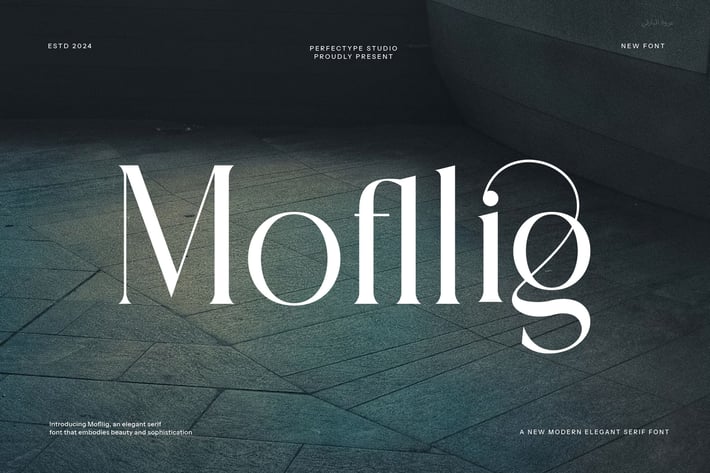
Mofllig Modern Ligature Serif Font
Mofllig is a modern serif font with a clean and elegant feel. It mixes classic shapes with soft curves and stylish ligatures. This makes it a great choice for logos, magazines, websites, packaging, and more. The font works well in both large and small sizes, so it’s easy to read in any format.
It includes uppercase and lowercase letters, along with many ligatures and alternate characters. Because of this, you can add a unique and custom feel to your designs. Also, it supports many languages, making it a great pick for international use.
The details in each letter help Mofllig stand out. While the shapes feel classic, they also look fresh and modern. As a result, this font is perfect for brands that want to look stylish yet timeless.
In addition, Mofllig offers OpenType features. These give you even more ways to style your text. For example, you can switch on ligatures or try different character sets to change the tone of your project. This is helpful when you want your text to feel personal or high-end.
You can use Mofllig in many ways:
- Elegant logos
- Blog headers or quotes
- Wedding invites and cards
- Fashion magazines
- Luxury packaging
- Website titles or banners
Also, the font works well when paired with sans serif fonts. This gives you more freedom when building a visual style. Whether you're creating a bold headline or a soft tagline, Mofllig fits right in.
In short, Mofllig is a serif font that blends beauty and function. It gives your design a strong voice without feeling heavy. Because it’s so flexible and easy to use, it will become a go-to choice in your font library.